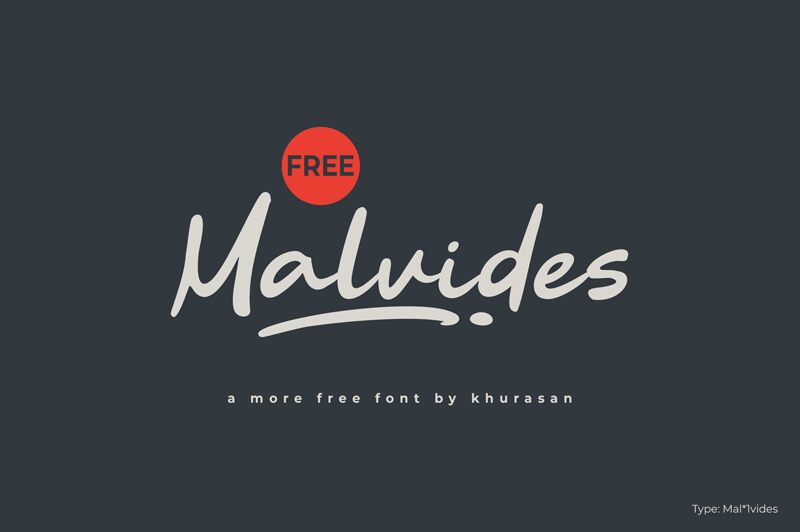
Malvides
Malvides font by Khurasan is a free handwritten script font. It solves a familiar challenge: getting that friendly, human warmth without sacrificing clarity. Smooth, inky strokes with a gentle right lean and rounded terminals give it an easy rhythm, while open counters and steady contrast keep it readable at a glance—no messy swashes, just confident brush energy.
Using Malvides, headlines and short phrases pop on cafe menus, lifestyle logos, product labels, event invitations, quote graphics, and social media banners. This free font shines when set a touch larger, with slightly tightened tracking for compact, cozy lines. Pair it with a clean geometric sans to anchor the voice and let Malvides carry the charm.